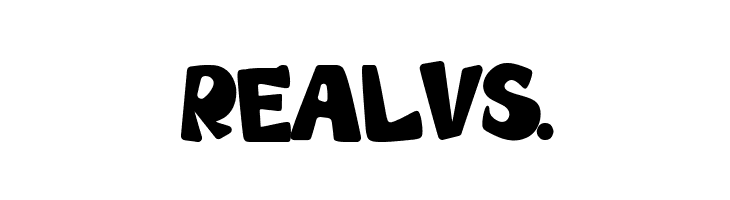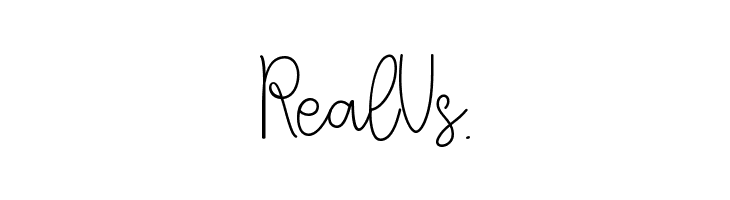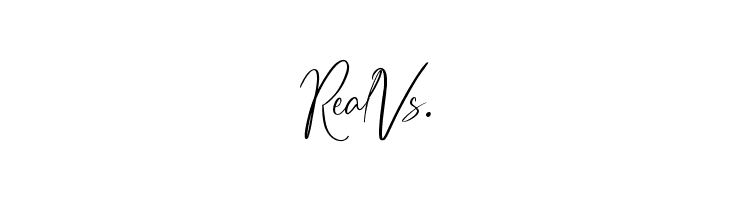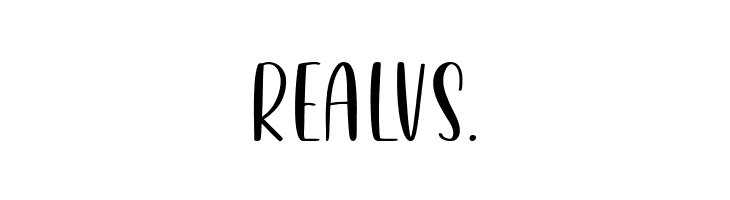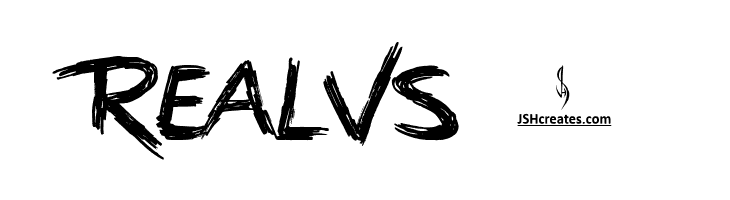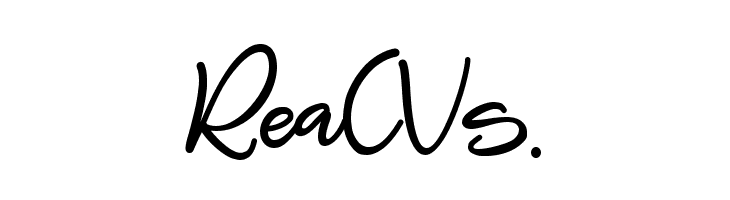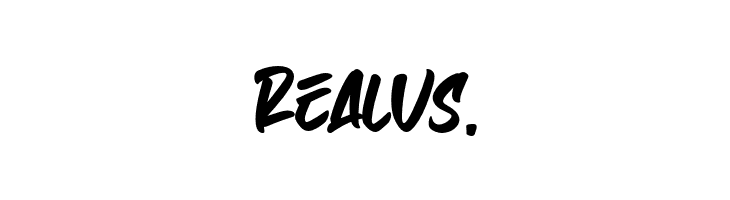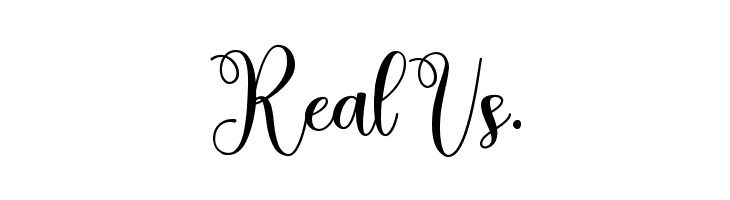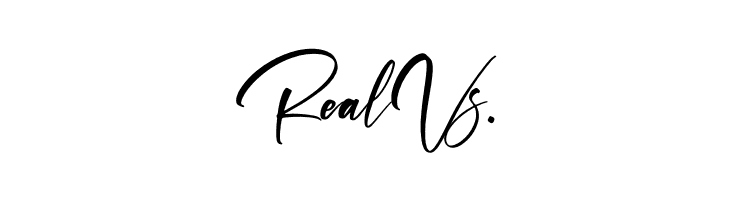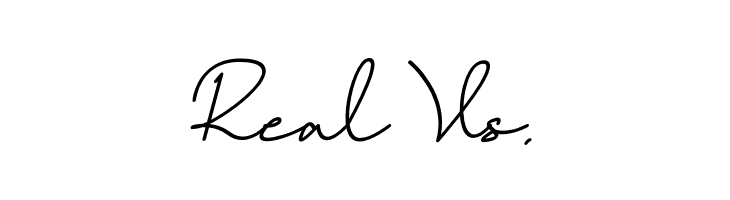
Elegant handwritten script font.
An elegant and flowing script font with interconnected letterforms.
A bold, playful font with rounded, chunky characters.
A bold, graffiti-inspired font with sharp, angular lines and dynamic flow.
A bold, energetic script font with flowing, connected strokes.
A bold, jagged, hand-drawn font with a graffiti-like style.
A bold, stencil-style font with a military-inspired, geometric design.
A bold, energetic script font with a hand-drawn, dynamic style.
Energetic, handwritten script with tall, narrow forms and expressive strokes.
A bold, brush-style script font with dynamic, textured strokes.
A bold, playful handwritten font with thick strokes and rounded edges.
Light, whimsical handwritten script with tall, airy letterforms.
A whimsical handwritten script with playful, flowing lines.
Handwritten, bold, italic script with a playful and elegant style.
Elegant, handwritten cursive script with a whimsical, airy style.
Light, whimsical handwritten script with tall, airy letterforms.
An elegant and flowing script font with decorative loops and swirls.
A playful, handwritten font with tall, narrow letters and a casual elegance.
A bold, expressive cursive script with thick strokes and dynamic flow.
A bold, handwritten-style font with rounded, playful characters.
A playful, heart-embellished decorative font with bold, rounded characters.
A lively, expressive handwritten font with dynamic strokes and playful flair.
A playful, handwritten font with bold, rounded characters and smooth lines.
A decorative font styled like a heartbeat line, perfect for thematic designs.
A playful, whimsical script font with a hand-drawn, cursive style.
A bold, distressed font with a vintage, handcrafted feel.
A whimsical handwritten font with elegant, flowing cursive letterforms.
A whimsical handwritten font with heart embellishments and tall, narrow letters.
A bold, geometric font with a futuristic and modern design.
A jagged, edgy font with sharp, thorn-like characters.
Casual, connected handwritten script with playful loops.
A lively and dynamic script font with fluid, continuous strokes.
A fluid, handwritten-style font with smooth, flowing lines and natural curves.